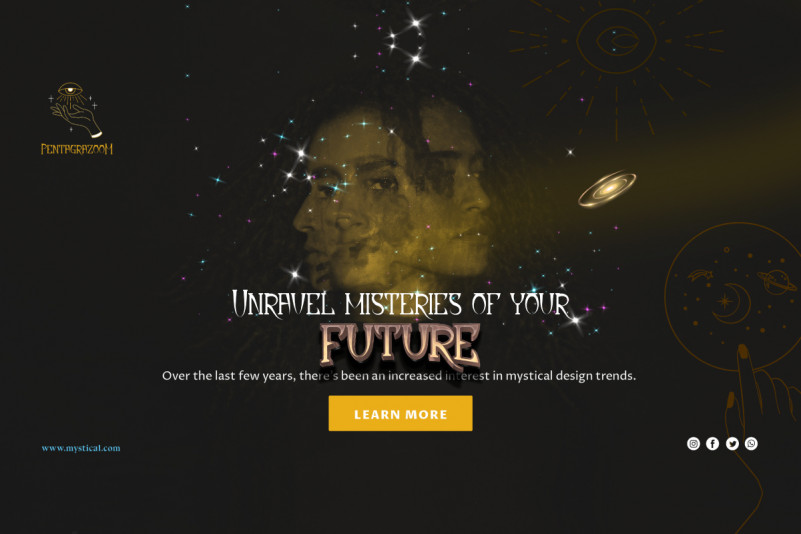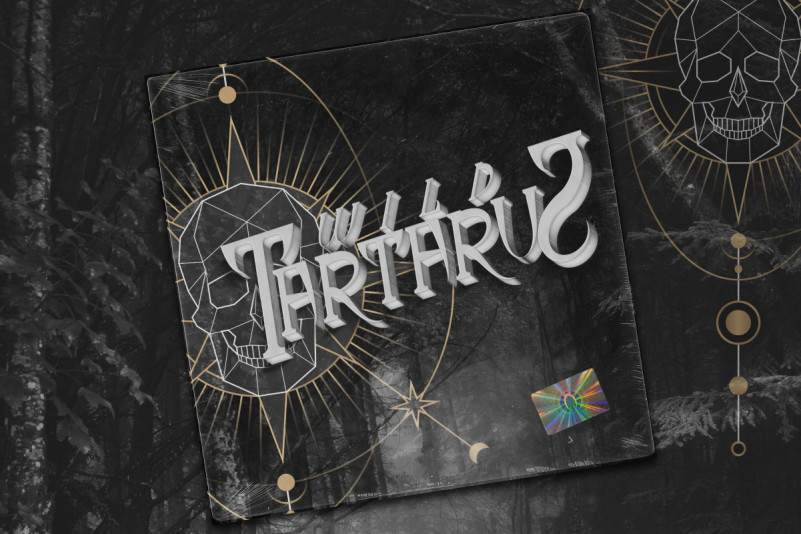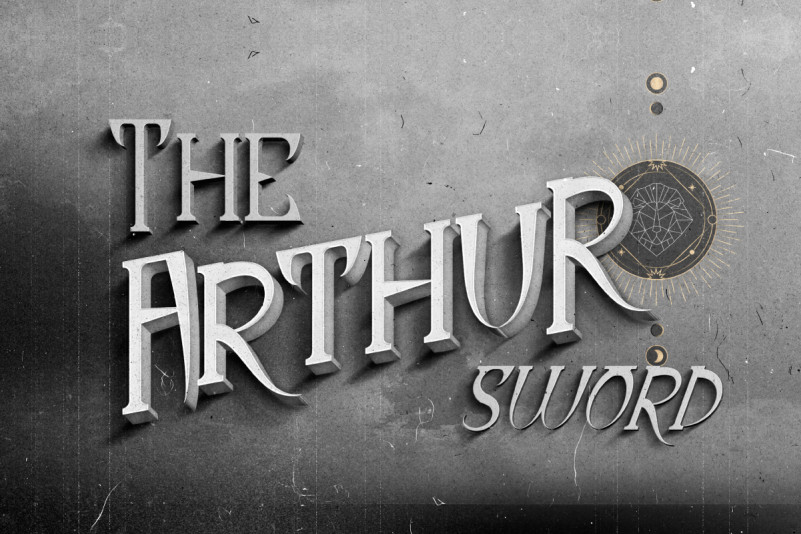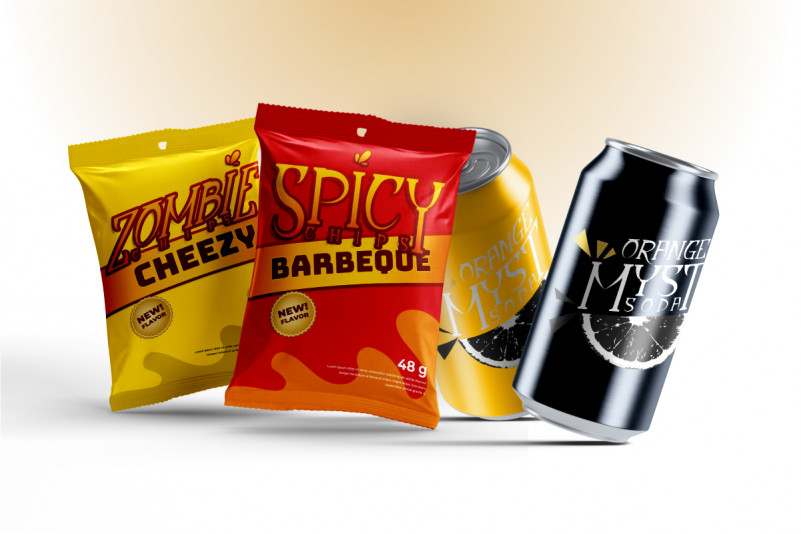
Dynastic Font
Dynastic Display Font
It’s a classic display Sans Serif font designed by RaisProject inspired from many kingdom and war era. The font was handcrafted for any your special projects including : brandings, promotion, events, games, advertising, magazine, signage, invitation, stationery, social media posts, label, or and any projects that need unique style. The industries for this font is Events, Games, Magazine, Music, Movies, Cafe, Restaurant etc